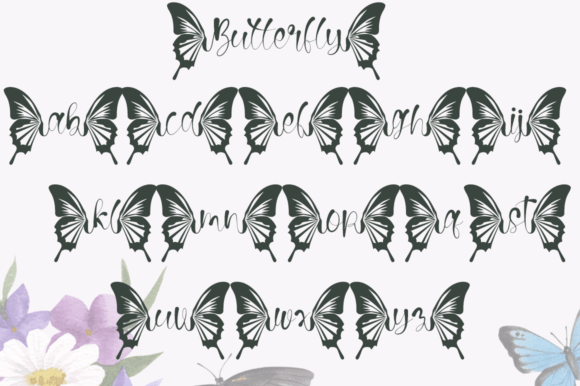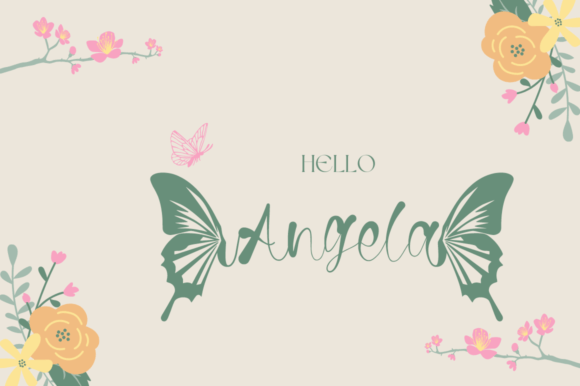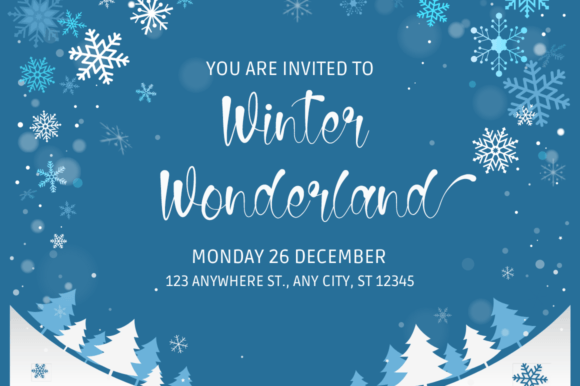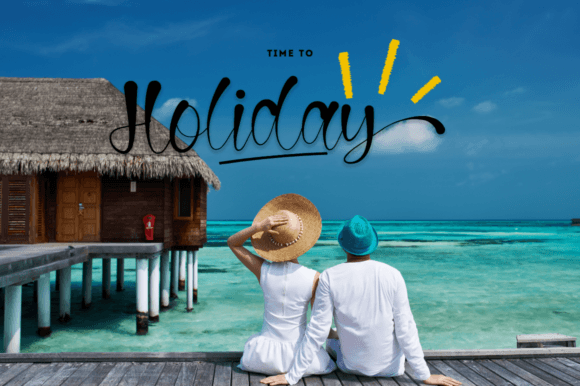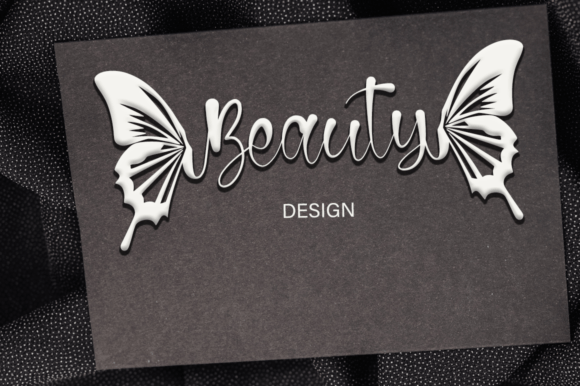
Flap into the World of Creativity with the Butterfly Font
Have you ever stared at a blank page, waiting for inspiration to strike? Maybe you’ve been stuck on a project for hours, and all you need is that one spark to get your creative juices flowing. For designers, this moment is a familiar feeling – until they stumble upon the perfect font. And for many, that font is the Butterfly Font, a modern calligraphy design that exudes a casual charm and beauty.
With its swashes and elegant lines, the Butterfly Font is a versatile tool for any creative project. From logos and product packaging to wedding invitations and branding, this font can add a touch of whimsy and sophistication to any design. And for designers, it’s a valuable asset that can elevate their work and help them stand out in a crowded industry.
Key Features of Butterfly Font
- Unique Characteristics: Butterfly Font features a distinctive, hand-drawn design with subtle imperfections, giving it a personal and whimsical feel.
- Character Set: The font includes a comprehensive set of characters, including Latin, Cyrillic, and Greek alphabets, as well as punctuation and special characters.
- Style Variations: Butterfly Font offers a range of style variations, including regular, italic, bold, and bold italic, allowing designers to create visual interest and hierarchy in their designs.
Review of Butterfly Font
Overall, I think the Butterfly Font is a unique and charming addition to any design project. ✨ Its whimsical feel and flowing lines make it perfect for creating a sense of wonder and magic. I particularly love using it for titles and headings, as it adds a touch of elegance and sophistication to any design.
- ✨ Whimsical and playful feel: The Butterfly Font is perfect for designs that require a sense of wonder and enchantment.
- ✨ Elegant and sophisticated: The font’s flowing lines and curves make it ideal for high-end designs and luxury brands.
- ✨ Versatile: The font can be used for a wide range of designs, from children’s books to high-end fashion magazines.
- ⚠️ Limited legibility: The font’s flowing lines and curves can make it difficult to read at small sizes or in certain contexts.
- ⚠️ Limited versatility in digital formats: The font may not render well in certain digital formats, such as on small screens or in certain operating systems.
Overall, I think the Butterfly Font is a great choice for designers looking to add a touch of whimsy and elegance to their projects. While it may have some limitations, its unique feel and versatility make it a valuable addition to any design library.
Tips for Getting the Most Out of Butterfly Font
Use Butterfly Font for whimsical and playful designs, such as children’s books, wedding invitations, and social media graphics. Experiment with different font sizes and colors to create visually appealing combinations.
Butterfly Font is commonly used for:
– Children’s book illustrations
– Social media graphics and advertisements
– Party decorations and signage
Alternatives to Butterfly Font
Great Vibes is a beautiful, elegant script font perfect for adding a touch of sophistication to your designs. It’s ideal for use in titles, headings, and quotes. Great Vibes has a more refined and classic feel compared to Butterfly Font, which is more playful and whimsical.
Carolyna Pro is a modern script font that’s great for adding a sense of luxury and elegance to your designs. It’s perfect for use in titles, headings, and body text. Compared to Butterfly Font, Carolyna Pro has a more refined and polished look, making it suitable for high-end designs.